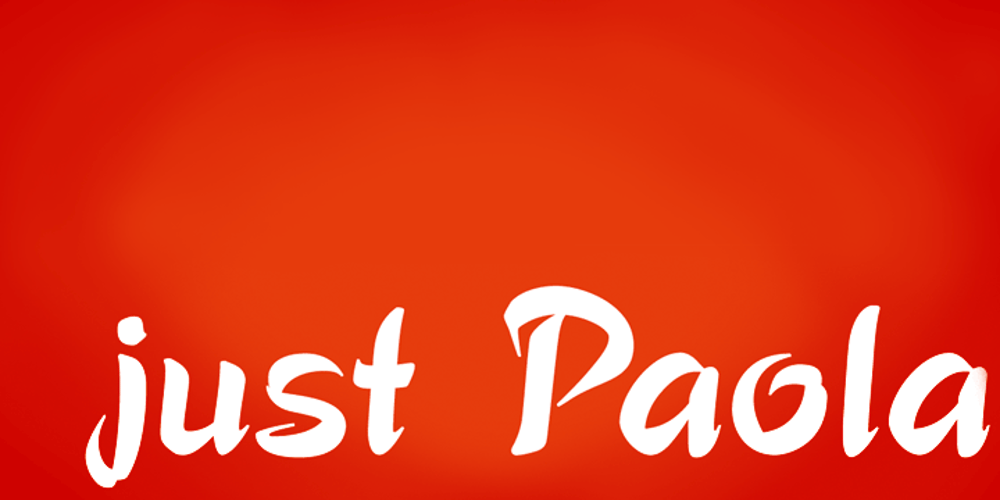
Paola
Paola font
Paola Font Family was designed by Carl Rudolf Pohl, Andreas Seidel and published by astype. Paola contains 1 styles and family package options. Paola is a redesigned, new interpretation of a typeface from Carl Rudolf Pohl. OpenType features: Central European faces Ligatures & contextual alternates Proportional & mediaeval numerals Fractions